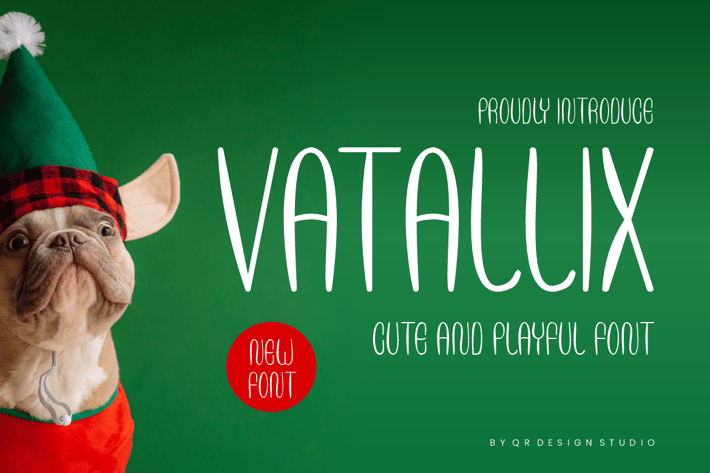
Vatallix - Comic Font
Vatallix - Comic Font is a bold and authentic display font.
The font is suitable for any branding project like poster, kids, food, logo, sport, and many more.